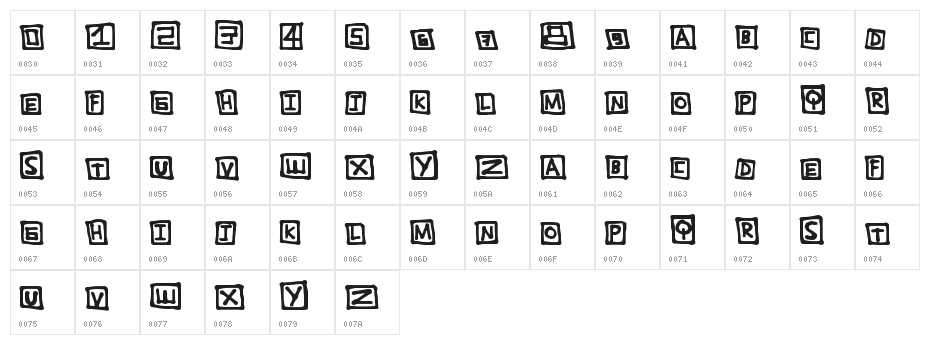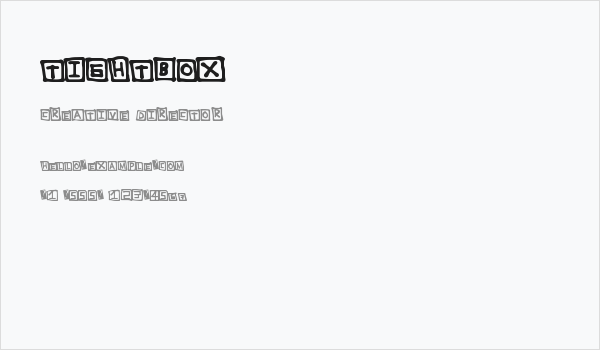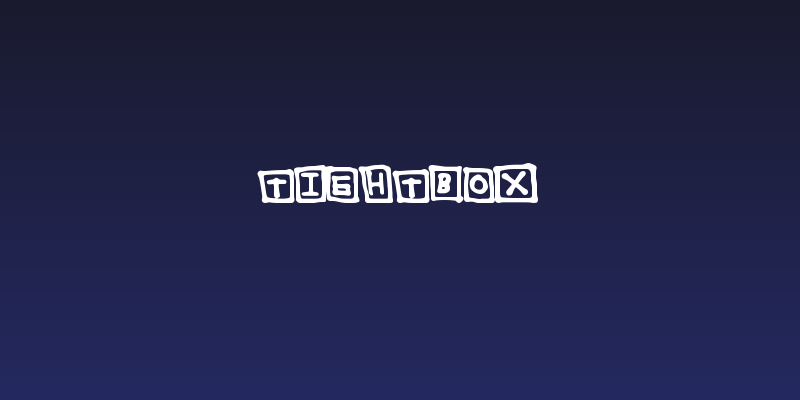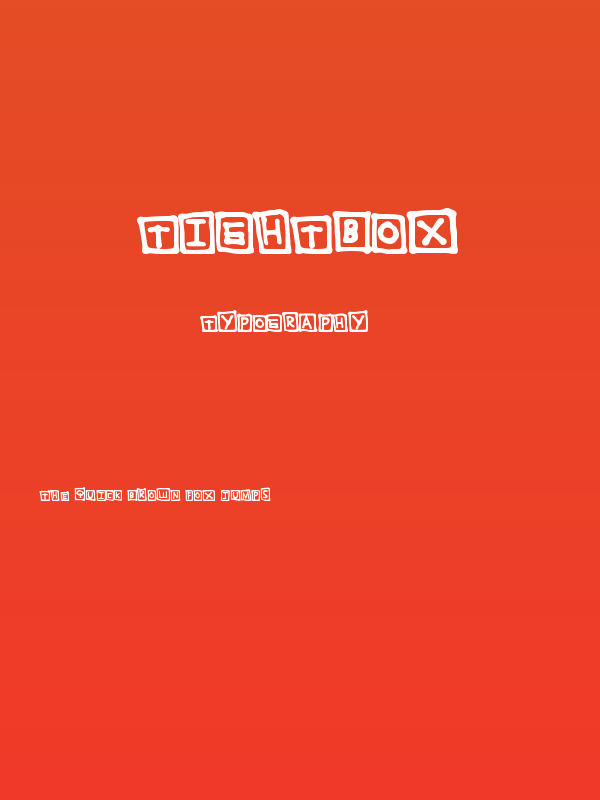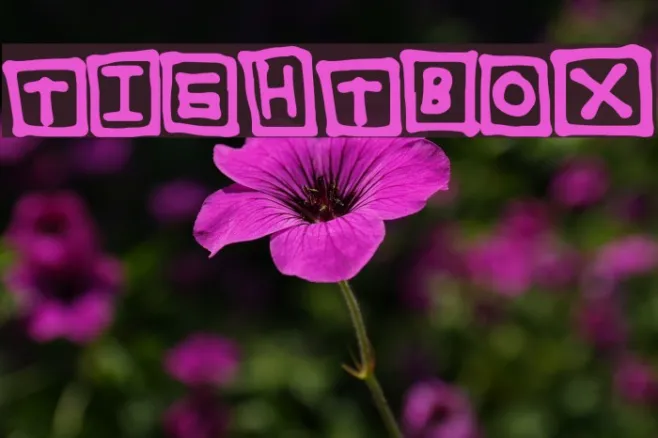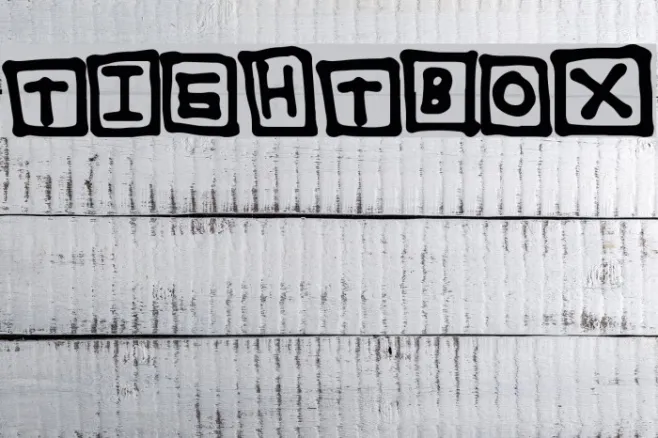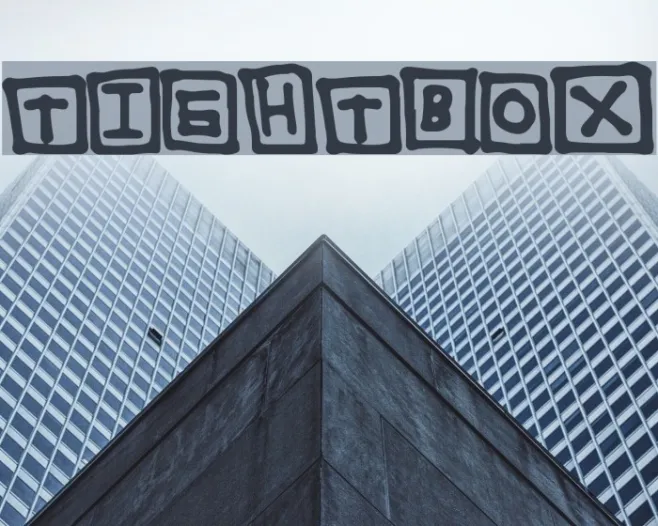
TightBox Font
TightBox Description
This font features a playful and bold design, with each character enclosed in a hand-drawn, irregular box. The letters and numbers are uppercase and lowercase, with a quirky, cartoonish style that adds a sense of fun and creativity. The thick outlines and uneven shapes give it a casual, informal appearance, making it stand out in any design. The special characters are also enclosed in boxes, maintaining the cohesive look across the entire set. This font is perfect for projects that require a unique and eye-catching aesthetic.
TIGHTBOX UPPERCASE
TIGHTBOX LOWERCASE
TIGHTBOX OTHER CHARS
| Overall Style | Playful, Cartoonish |
| Proposed Projects | Ideal for children's books, comic strips, playful branding, and creative posters. |